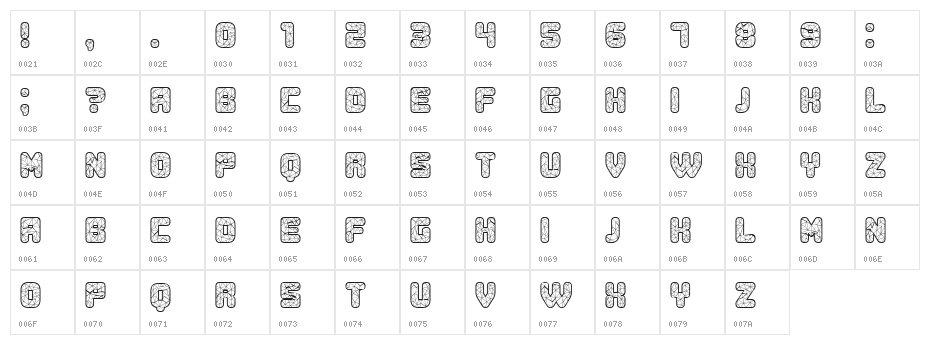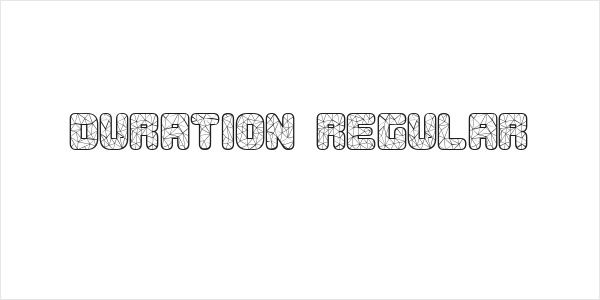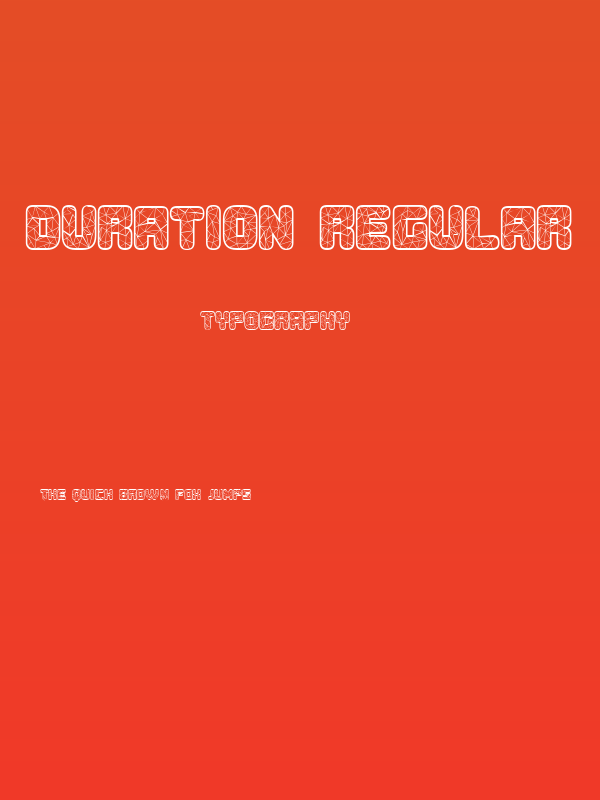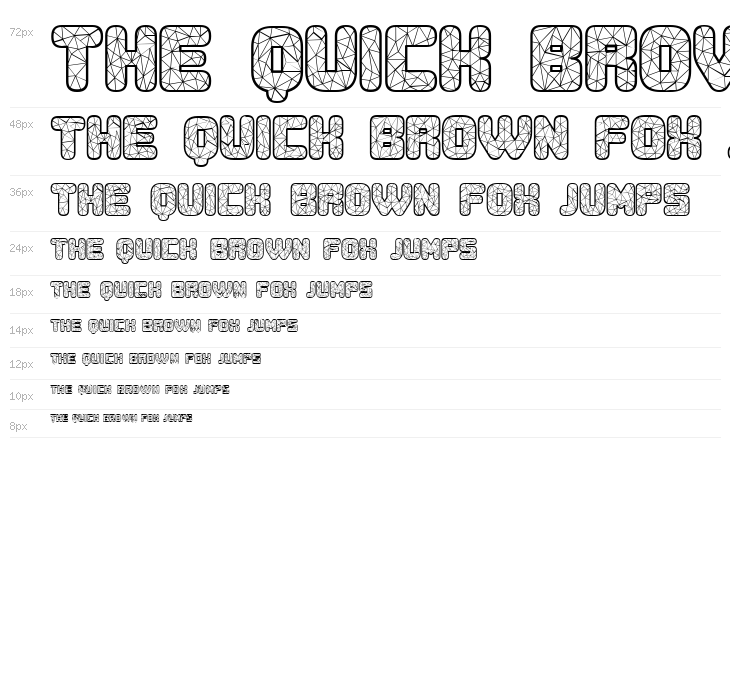
Duration Regular Font
Duration Regular Description
This font features a unique geometric design with a network of interconnected lines forming a mesh-like pattern within each character. The letters are bold and rounded, giving them a modern and playful appearance. The intricate line work creates a sense of depth and complexity, making it ideal for eye-catching designs. The characters maintain a consistent structure, with each letter and number enclosed in a rounded rectangular shape. This font is particularly suited for creative projects that require a distinctive and artistic touch.
| Proposed Projects | Ideal for posters, logos, and branding projects that require a modern and artistic flair. |